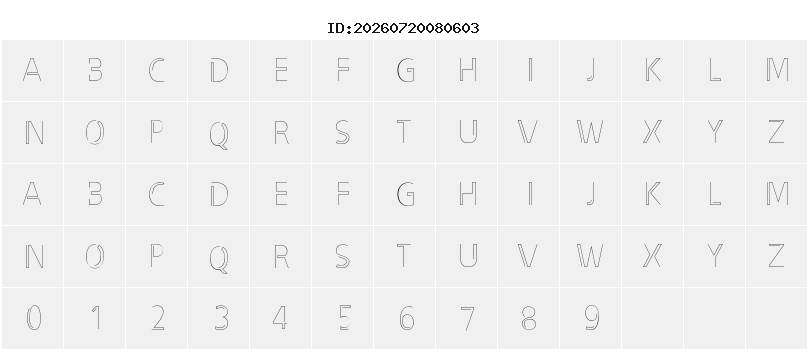
• Font Name: filament font
• Full Font Name: filament font
About filament font.ttf
filament font.ttf is a modern, elegant sans-serif font designed for ultimate readability and visual harmony. Perfect for branding, headlines, web design, and print materials.